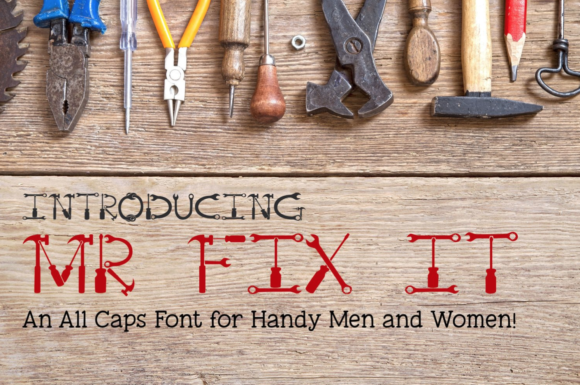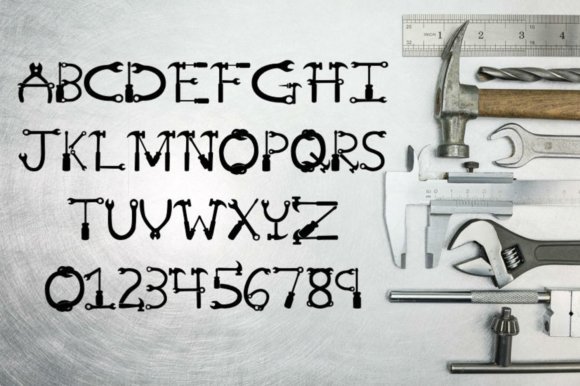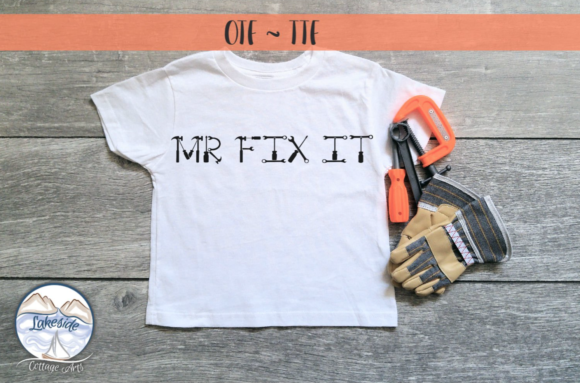
Mr. Fix It Font
About the Mr. Fix It Font
Meet Mr. Fix It Font, a stunning font that brings a touch of elegance and professionalism to any design. Mr. Fix It – Tool Font for Handy Men and Women
A tool alphabet turned into an easy-to-use font? Yes! Created by the designer with crafters in mind, this fun, hand-drawn font features minimal nodes for a smooth cutting experience and smaller file size.
Mr. Fix It’s playful, hand-drawn aesthetic makes it ideal for headlines, logos for craft businesses, short taglines, and packaging design where a friendly, approachable feel is desired. It works exceptionally well in projects emphasizing handmade quality or a DIY ethos. However, its informal nature makes it unsuitable for body text, lengthy paragraphs, or user interfaces requiring high readability.
Pairing Mr. Fix It with a clean sans-serif like Open Sans for body copy provides excellent contrast and readability. For a more sophisticated look, consider pairing it with a classic serif font such as Garamond for supporting text or branding elements that need a touch of elegance. Avoid pairing it with other highly decorative or script fonts, as this would create visual clutter.
The font’s core personality is friendly and approachable, conveying a sense of approachability and craftsmanship. Its slightly quirky, handmade charm is perfect for projects targeting a younger demographic or those aiming for a casual, trustworthy brand image.
Mr. Fix It Font Usage Examples
Mr. Fix It Font Example